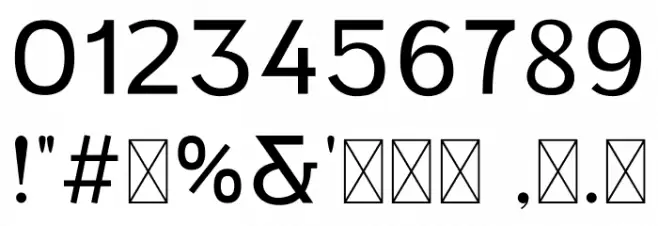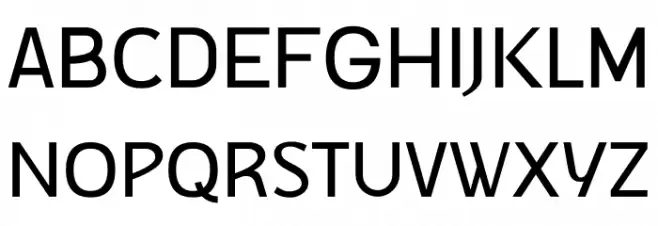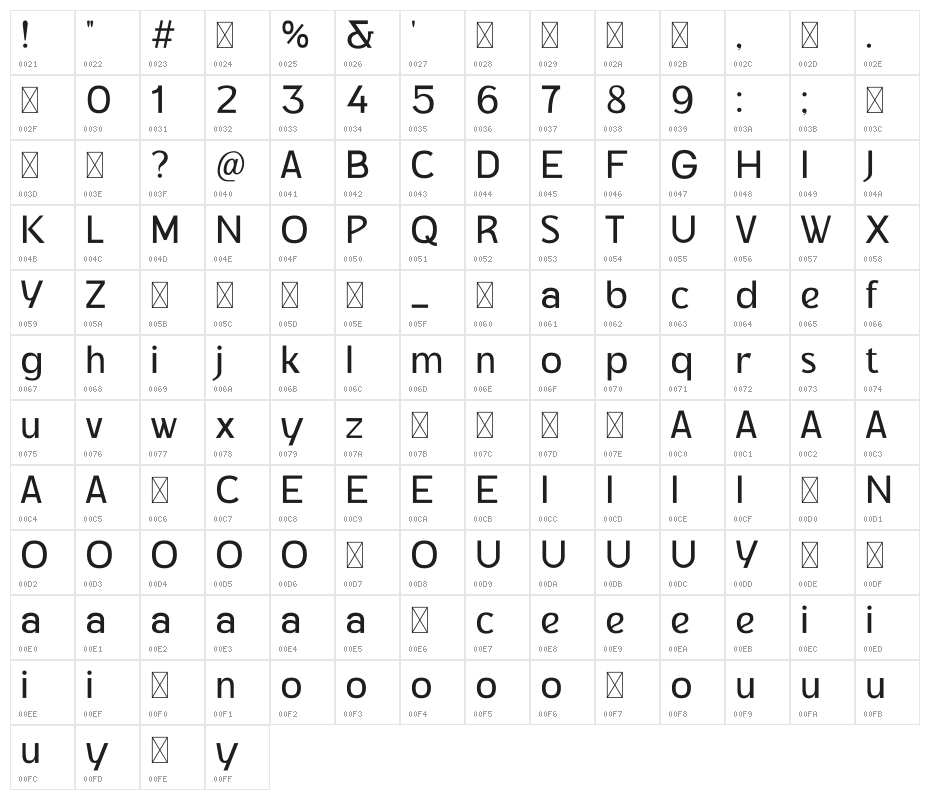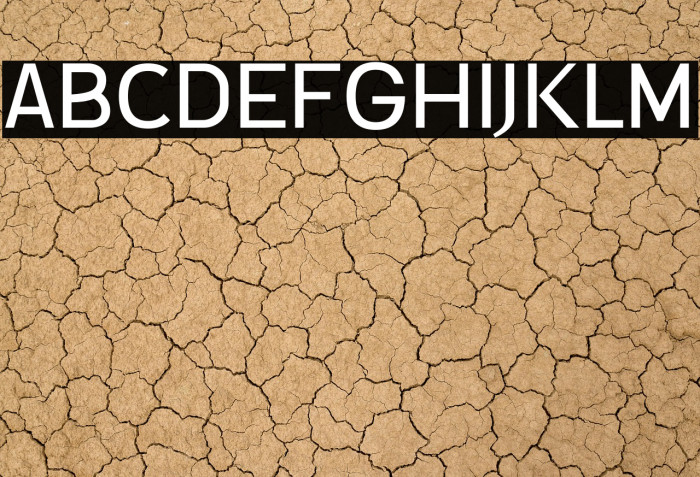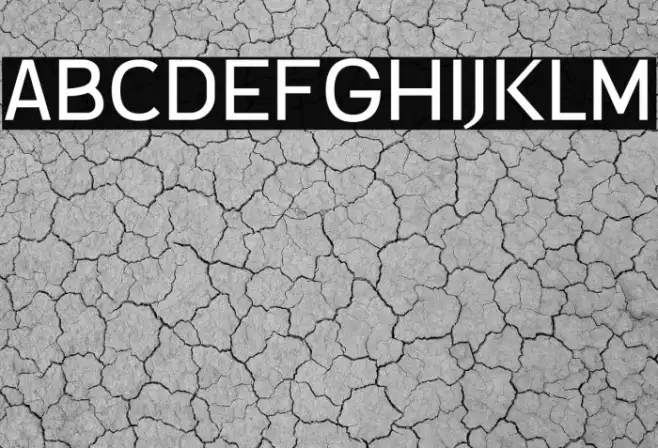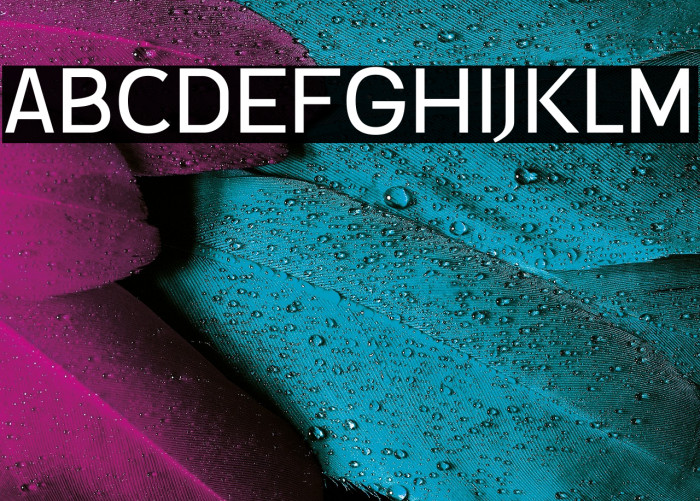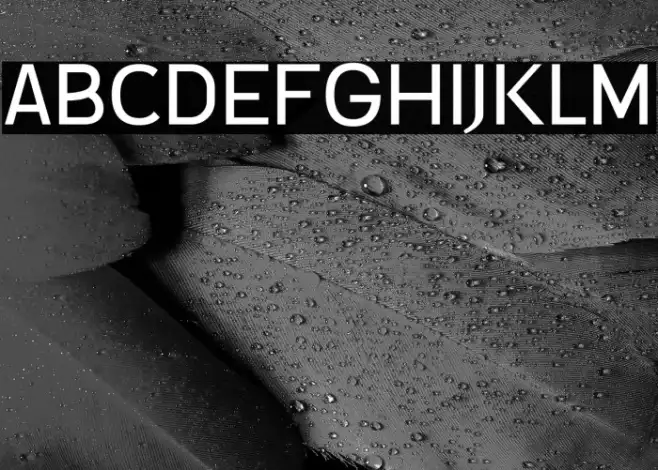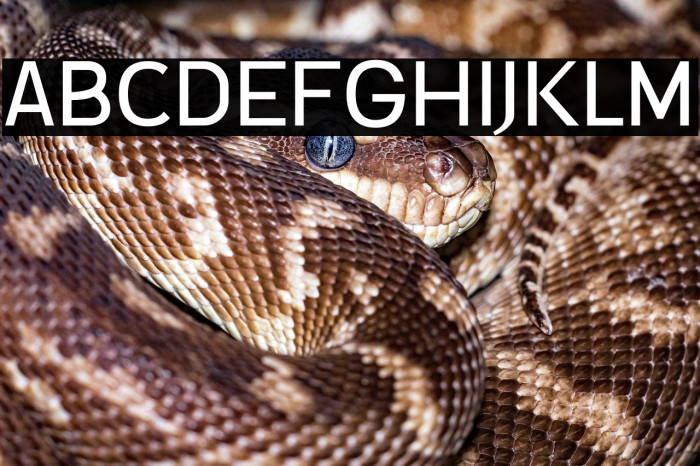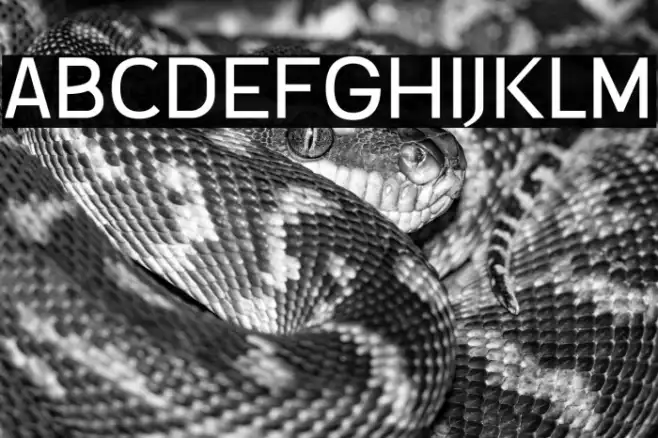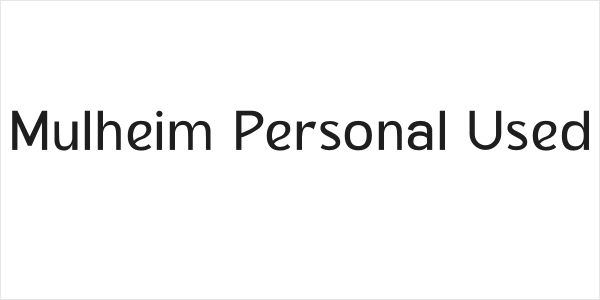
Mulheim Personal Used Font
✎ Sans Serif
Mulheim Personal Used Description
A clean, modern sans-serif font with uniform stroke width and geometric shapes, suitable for various design applications.
| Use Case | Headlines, Body text, Logos |
| Proposed Projects | Branding, web design, print media. |